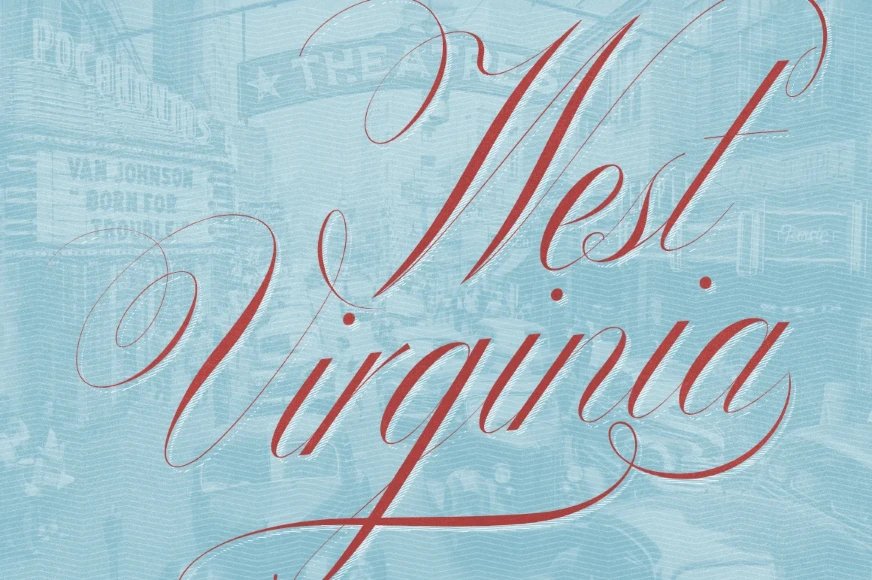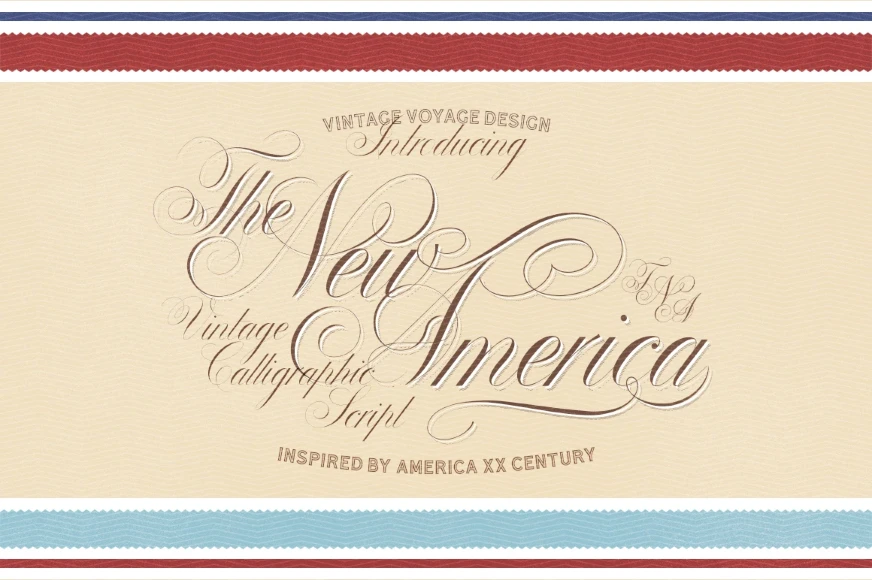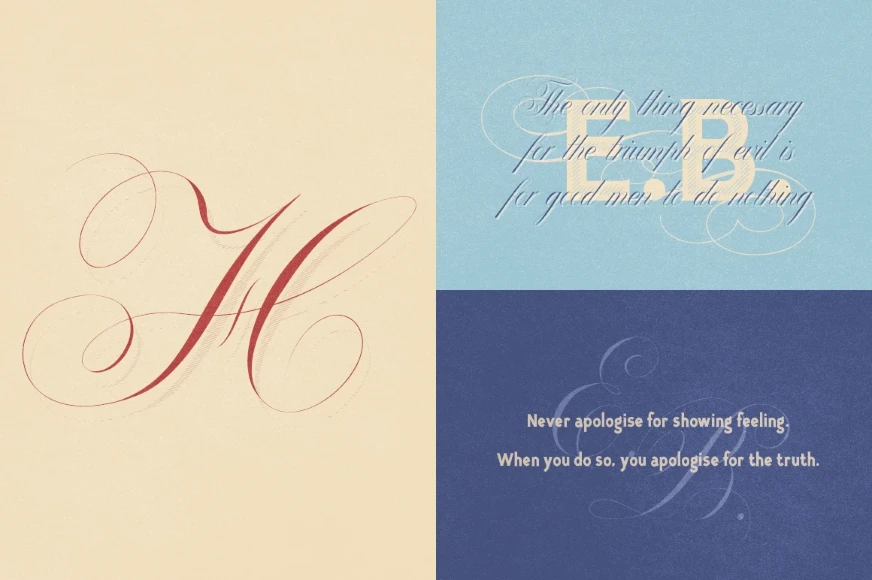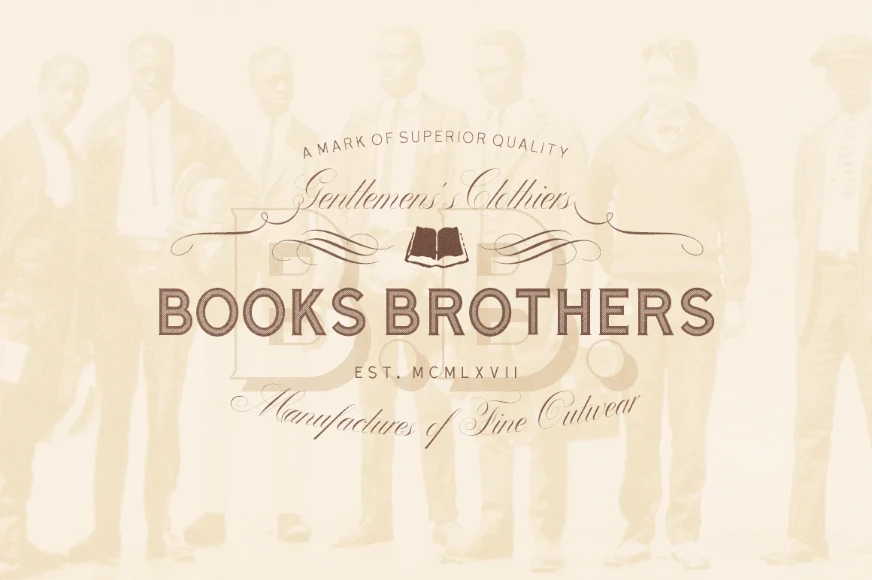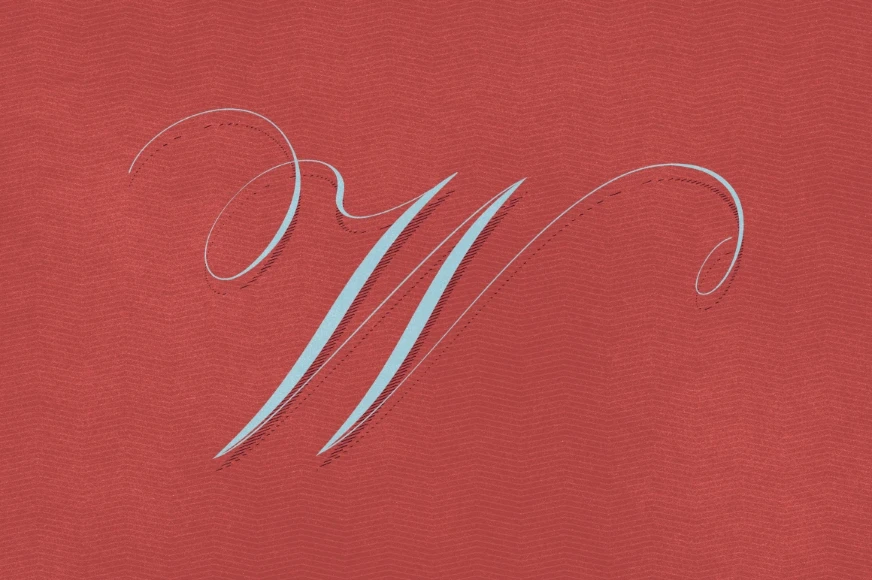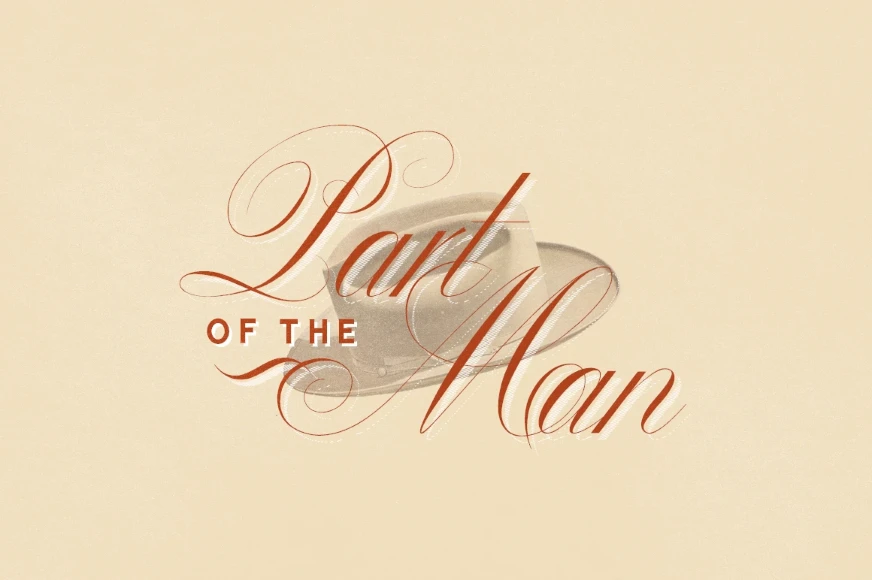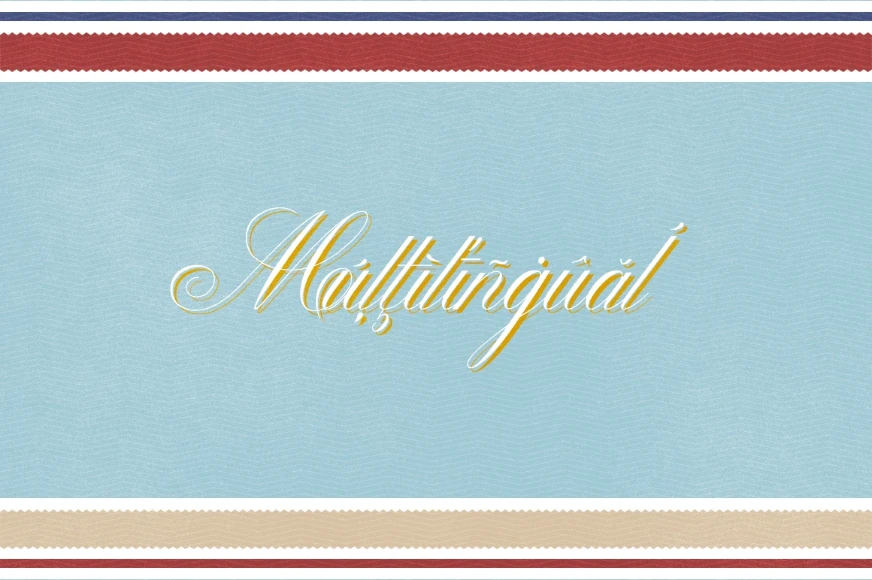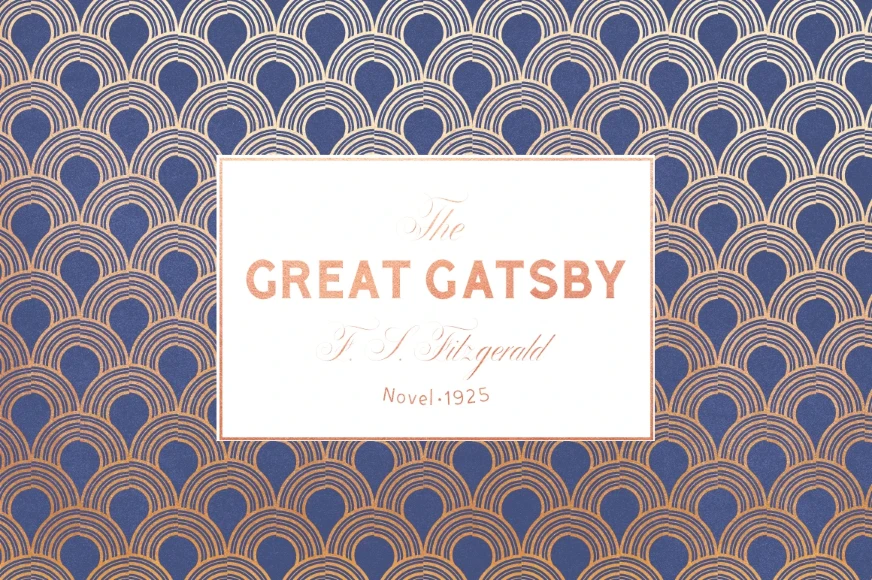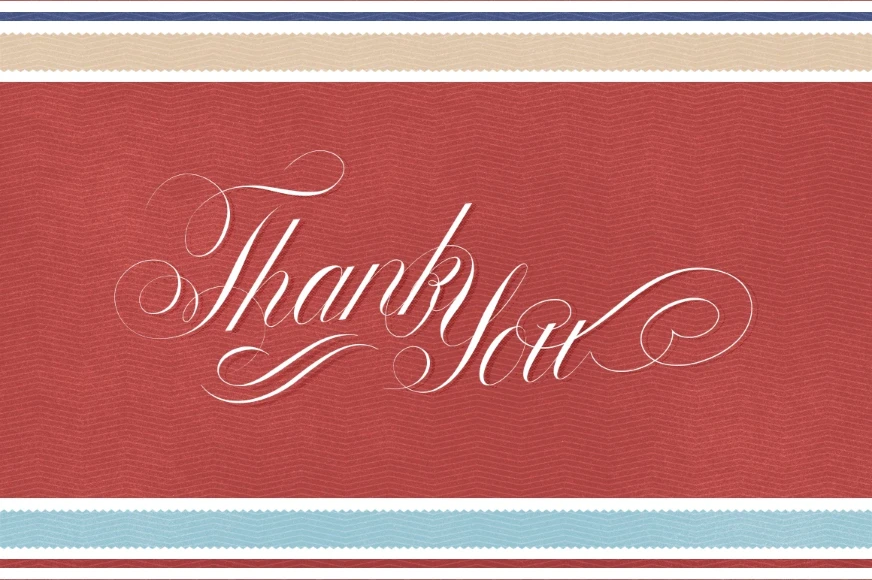
New America
New America Flourishes
New America Lined Flourishes
New America Lined Regular
New America Regular
The New America is a classic calligraphic script font with the vintage spirit of 20th-century America. Features elegant flourished capitals paired with simple, clean lowercase characters. Designed for classic vintage design in posters, t-shirts, book covers, postcards, wedding cards, and nostalgic branding. A strong choice for projects that need timeless charm and a touch of American heritage.